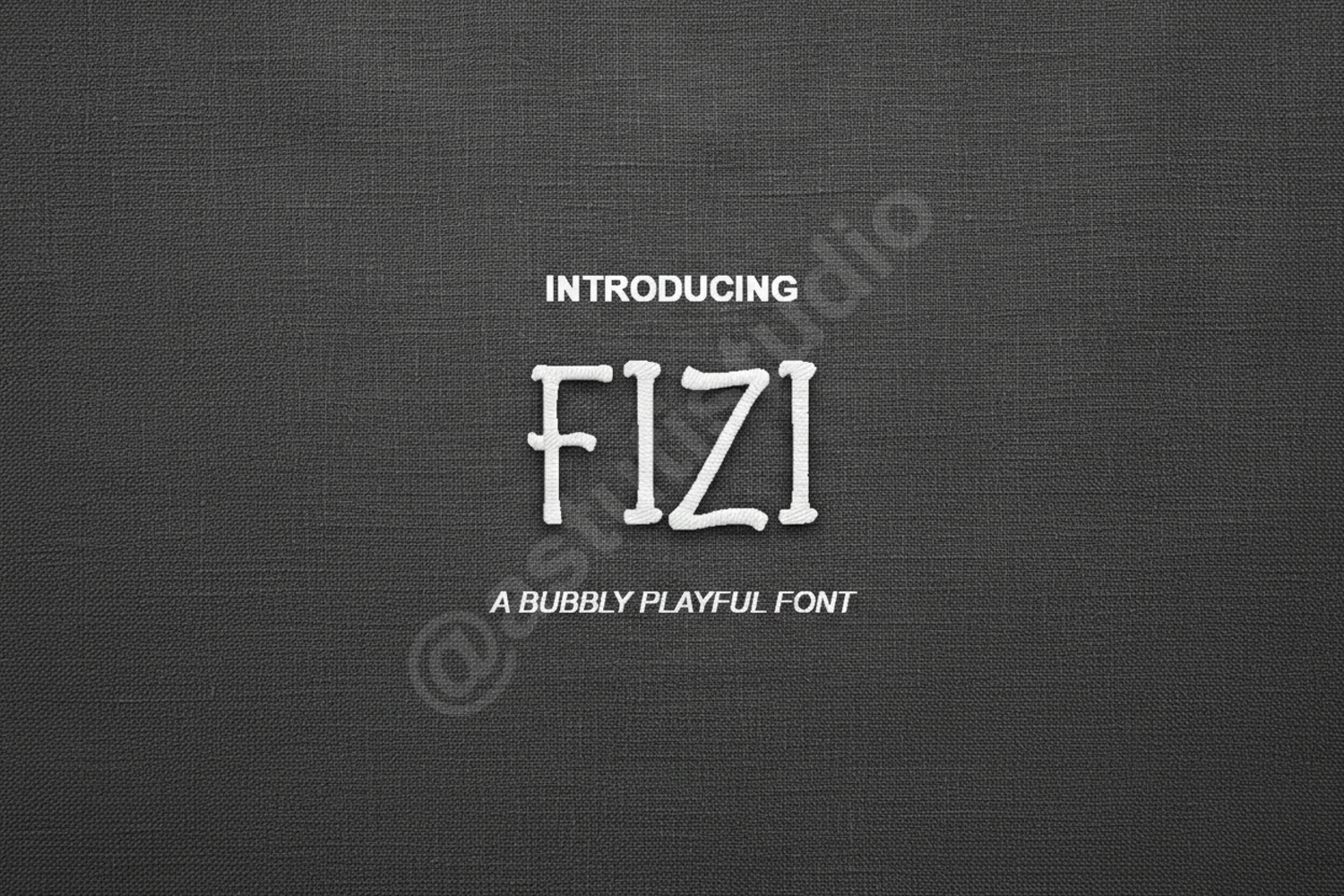
Fizi - Modern Minimalist Sans Serif Font
Fizi
Elevate your creative projects with Fizi, a premium minimalist sans serif font designed for the modern professional. Fizi blends clean geometric lines with a sophisticated contemporary aesthetic, ensuring your message is delivered with clarity and style. This typeface is meticulously crafted to offer exceptional legibility while maintaining a unique personality that stands out in any design landscape.
- Complete uppercase and lowercase character sets
- Comprehensive numbers and punctuation
- Multi-language support for global reach
- Branding and Identity: Craft striking logos and cohesive corporate stationery.
- Editorial Design: Ideal for clean magazine layouts, headers, and book covers.
- Digital Design: Optimized for high legibility in web interfaces and mobile applications.
- Advertising: Create high-impact posters, social media graphics, and marketing banners.
- Minimalist Packaging: Perfect for sleek product labels and high-end retail packaging.